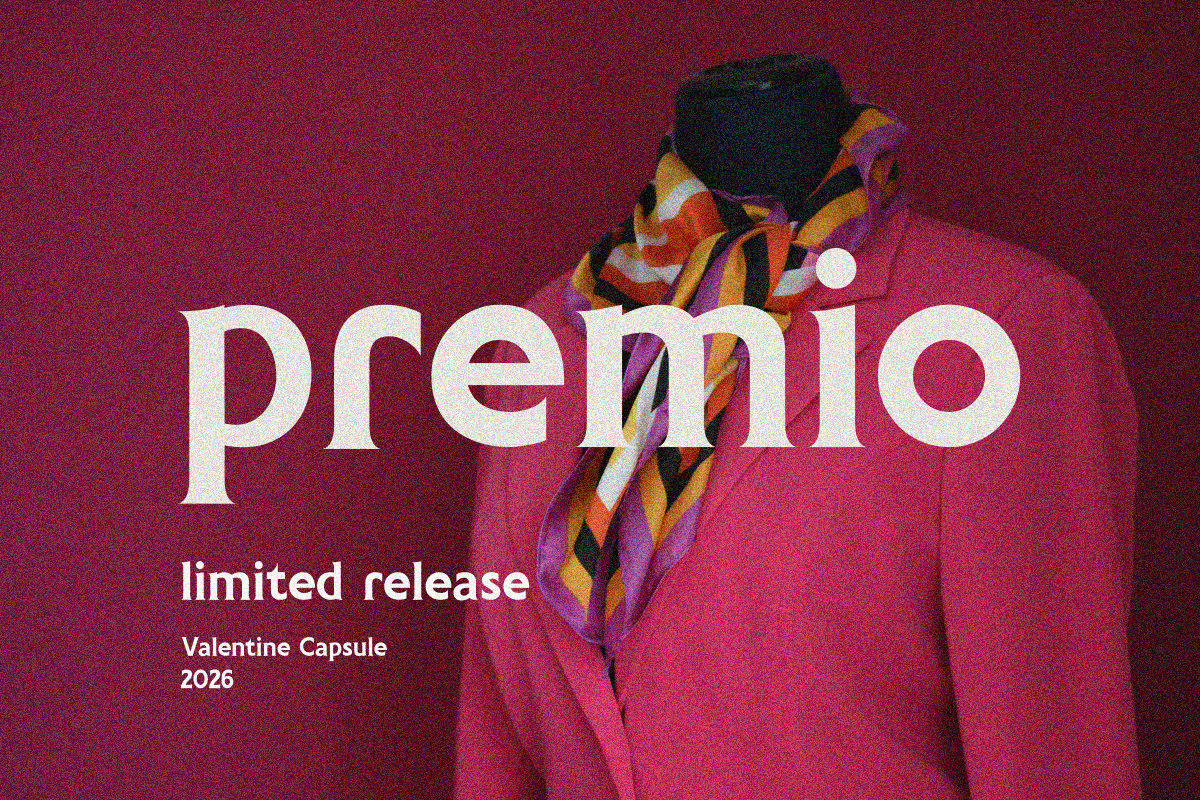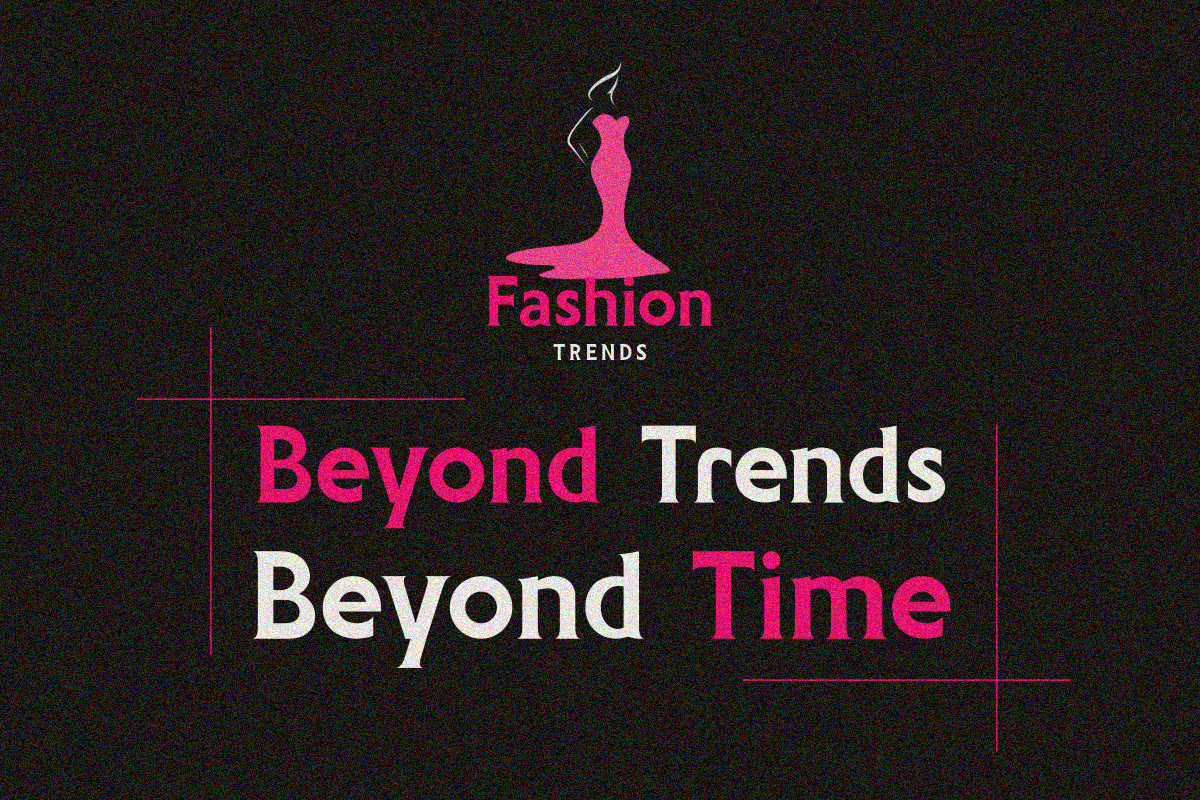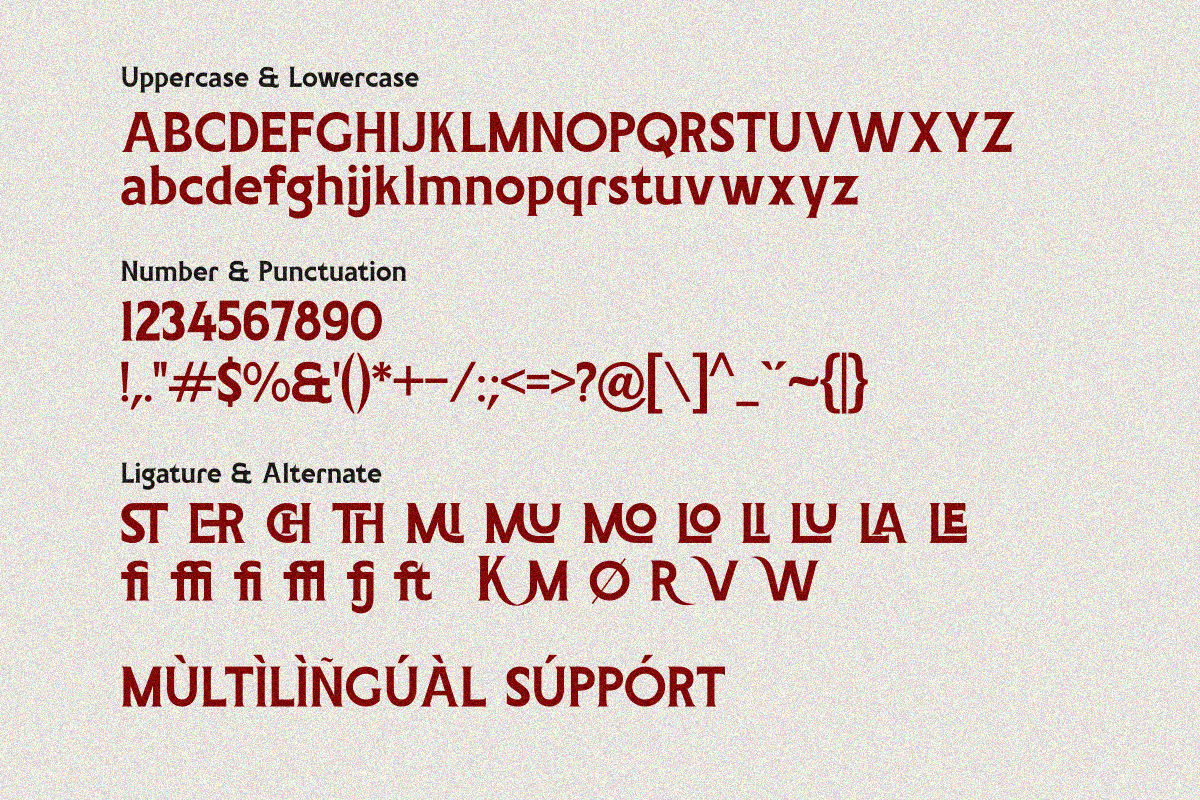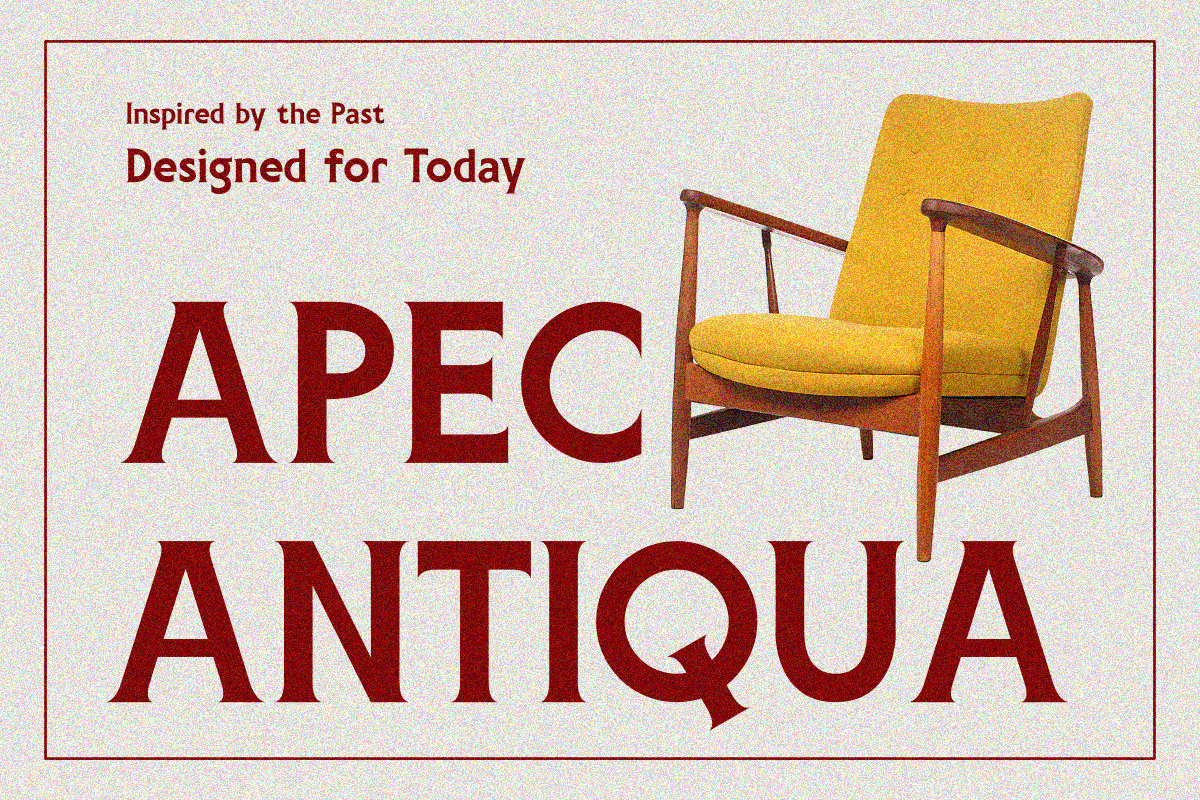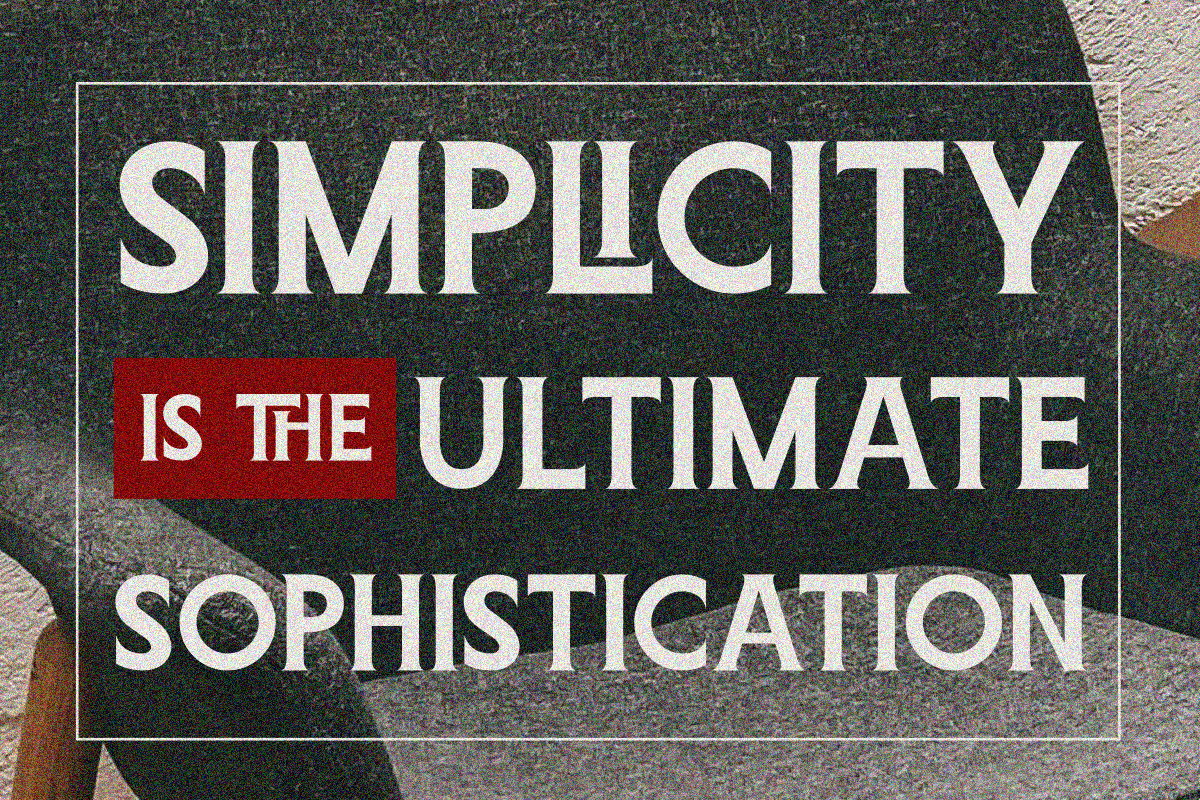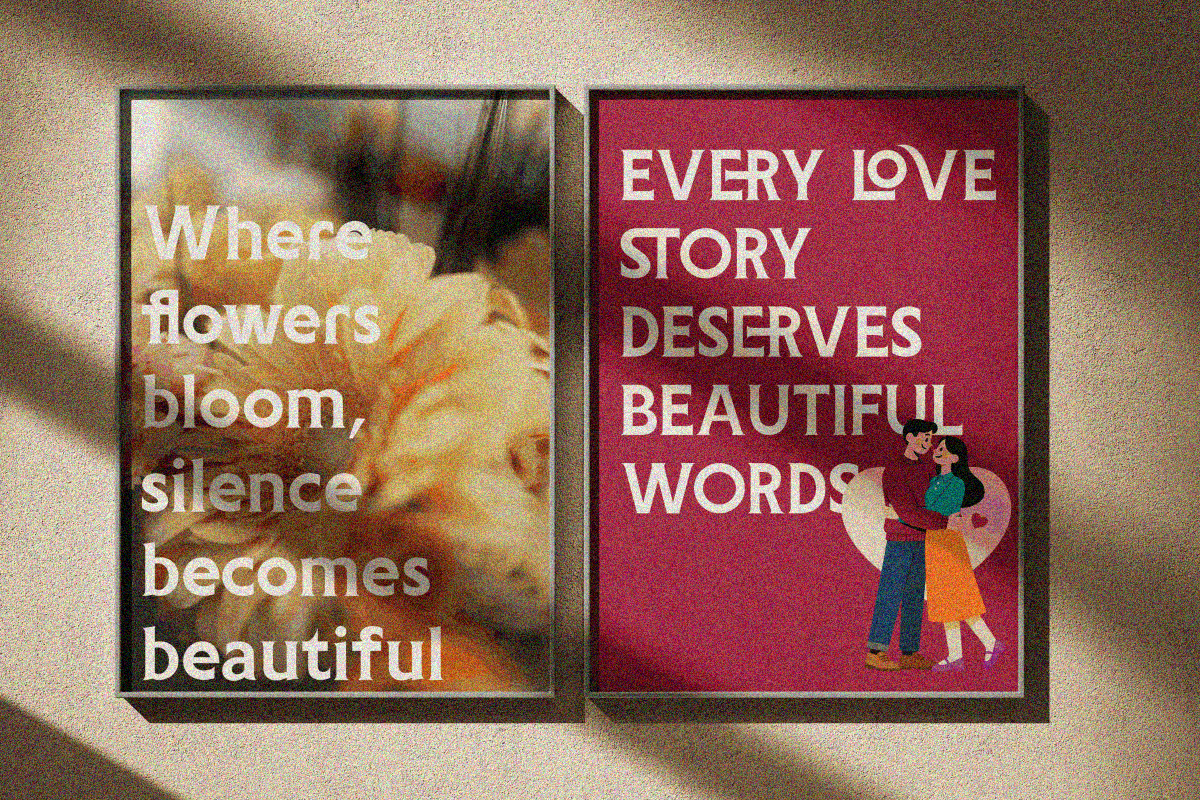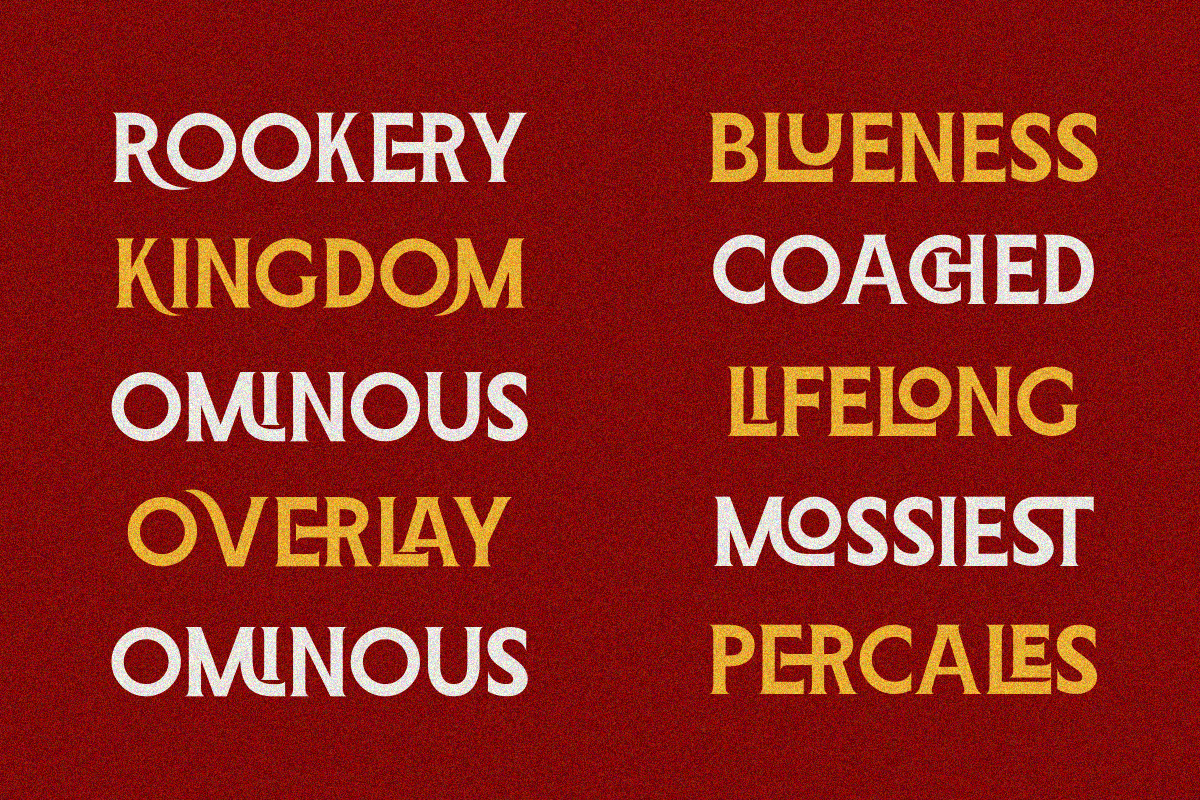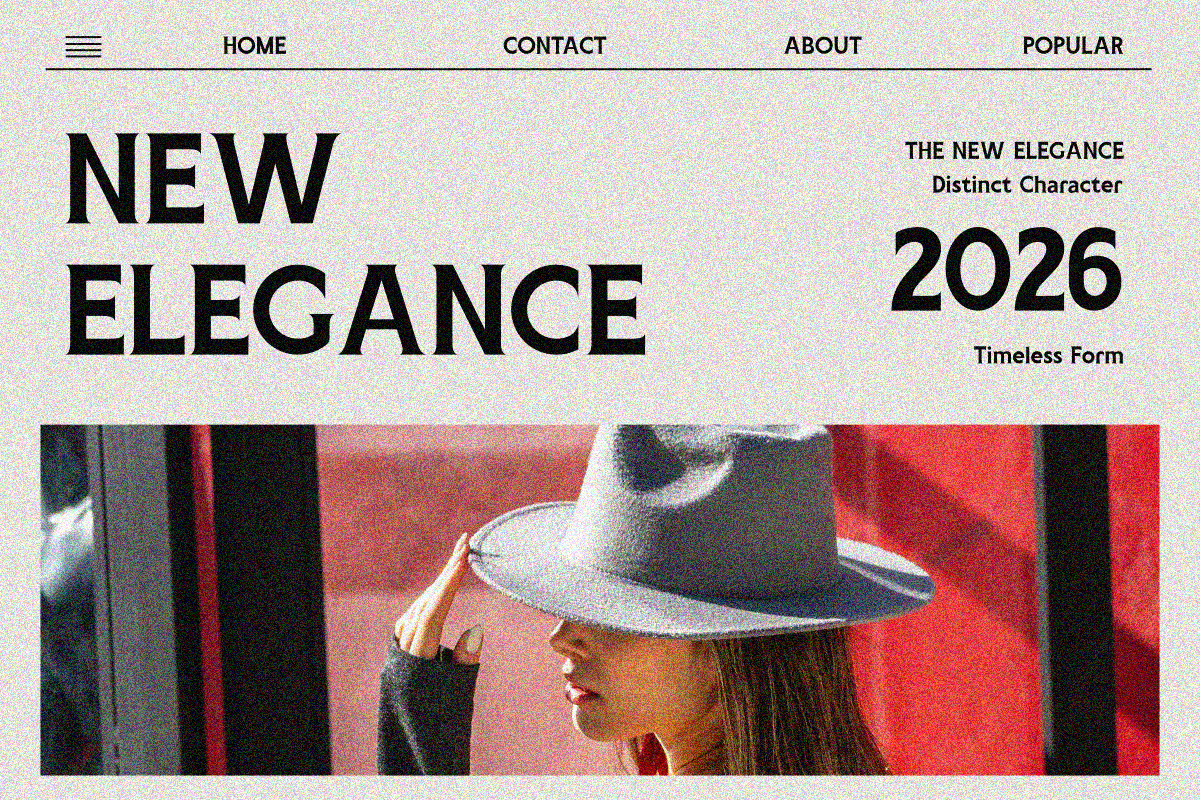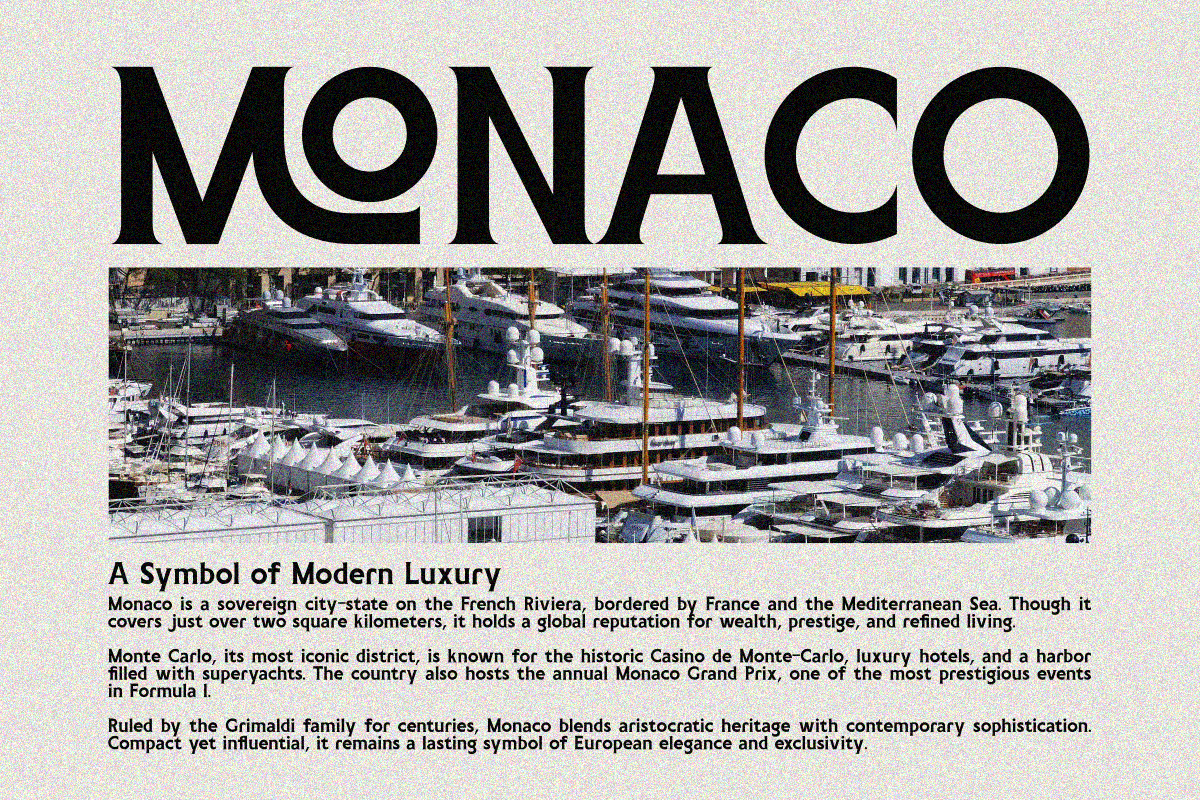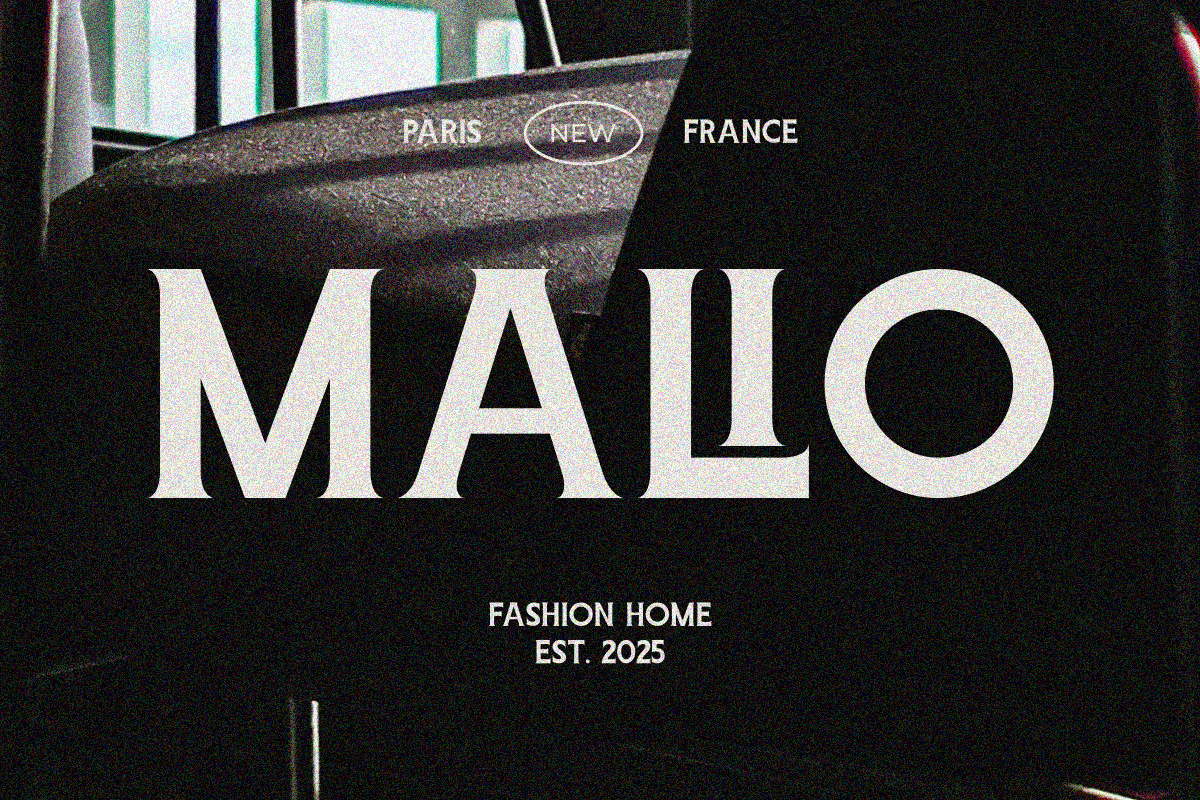
Gothica Modern Gm
Gothica Modern GM is a luxury serif typeface built on strength and refinement. Its bold serifs, confident proportions, and balanced contrast create a commanding presence while maintaining polished elegance.
Designed for modern brands that demand authority and sophistication, premium packaging, luxury logos, and statement headlines.
Gothica Modern GM speaks in a voice that is powerful yet graceful — a serif crafted for contemporary prestige.